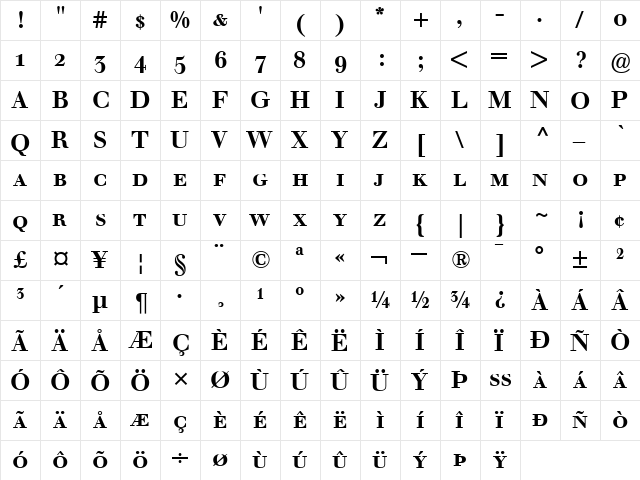
Berthold Walbaum Book Bold
Design Context for Berthold Walbaum Book Typeface
Berthold Walbaum Book offers clean, dependable letterforms without strong stylistic allegiance, making it a practical choice for designers who need flexibility. Its bold stroke weight gives it real presence on the page.